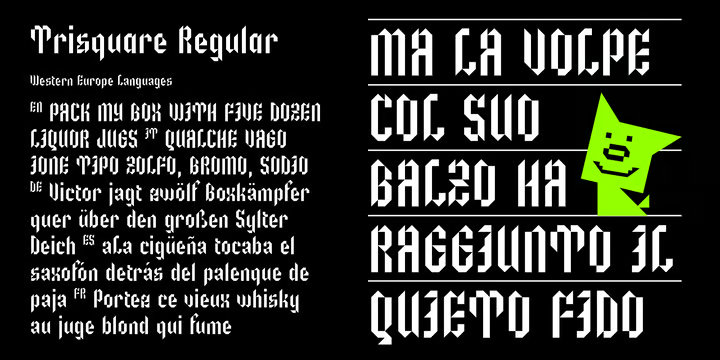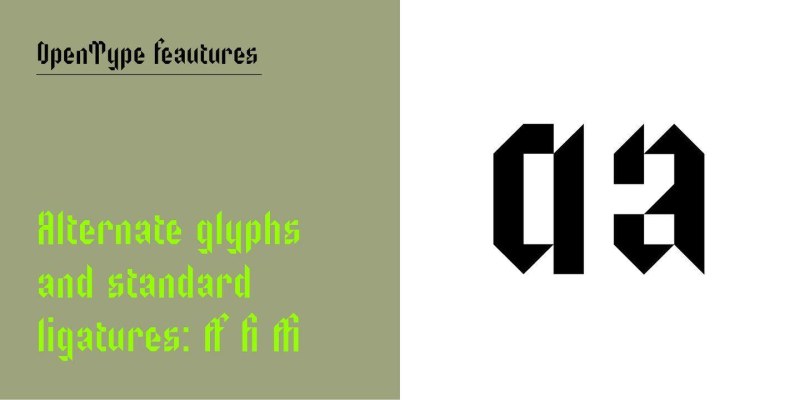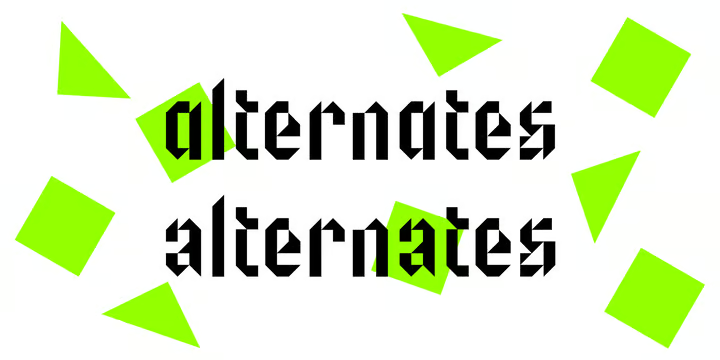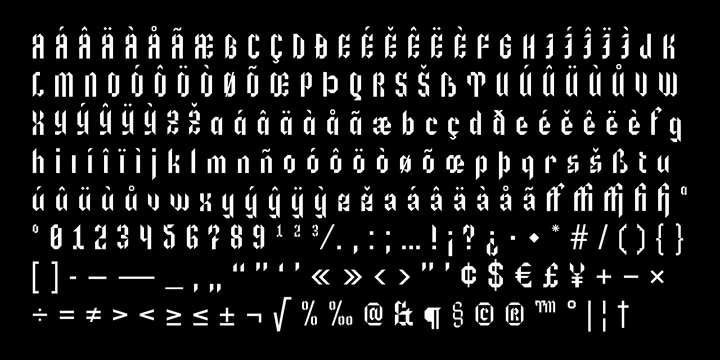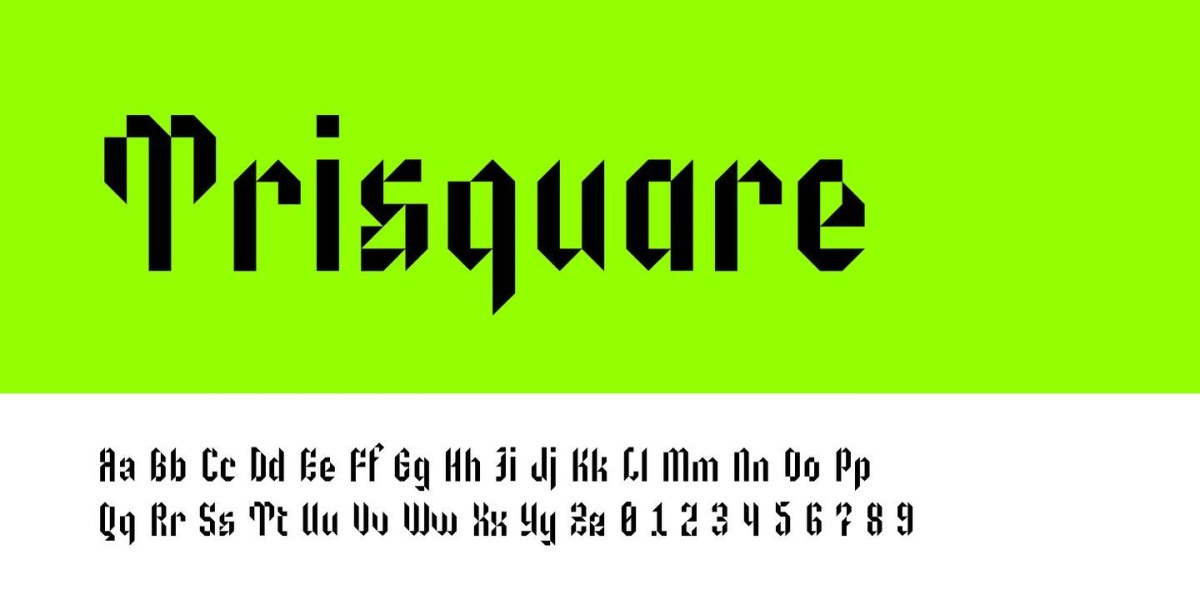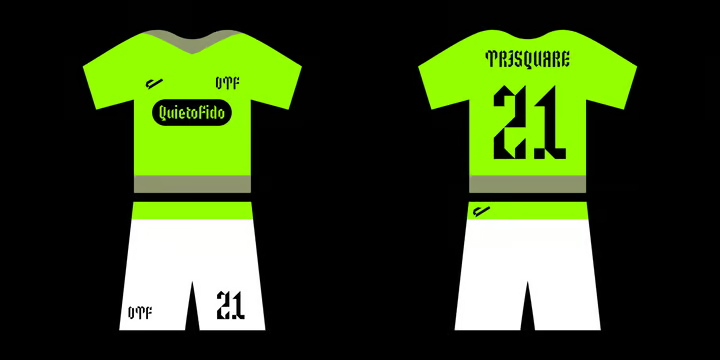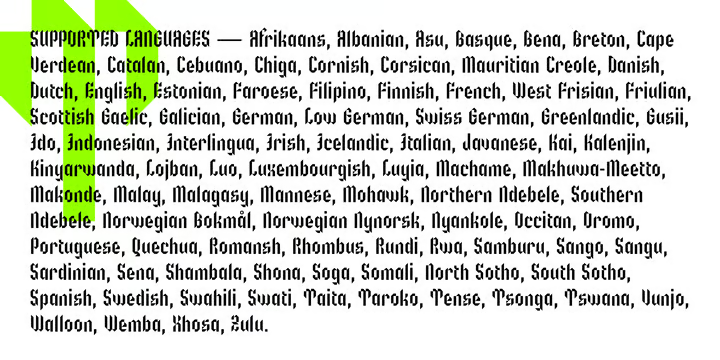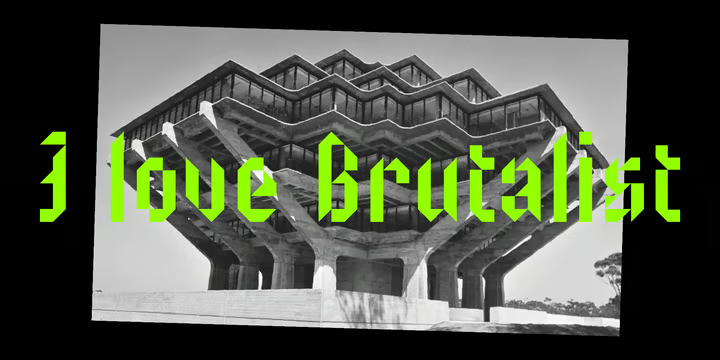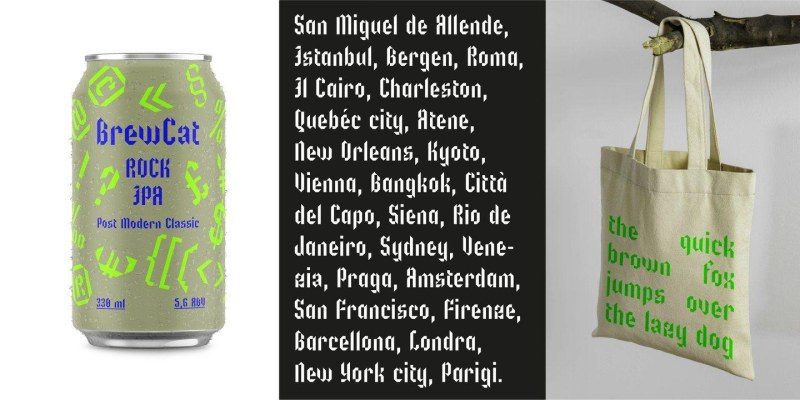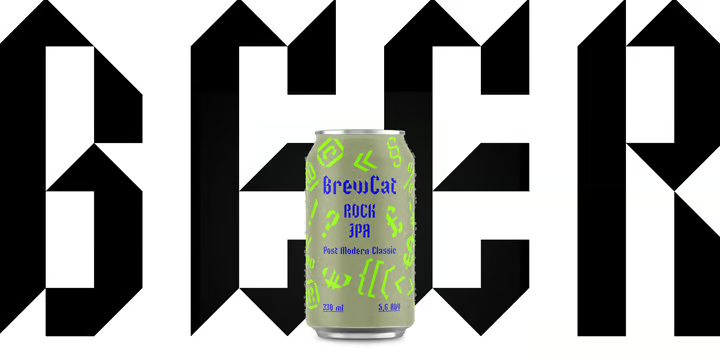
Trisquare Font
Trisquare is an Experimental Display Typeface, which is inspired by the strokes of the Fraktur alphabet but developed through the composition of triangular and square shapes. It has a particular ancient soul with a digital taste but is not monospaced. Trisquare is good to use for Branding, Signage, Packaging, Advertising, Headlines, Magazines, Book titles, or everything you want to use it for.
Where Trisquare Font works best
Trisquare Font is built for size: event posters, hero headlines and billboard-style layouts.
High contrast display type like Trisquare Font reads instantly in thumbnails and motion graphics.
What is Trisquare Font good for?